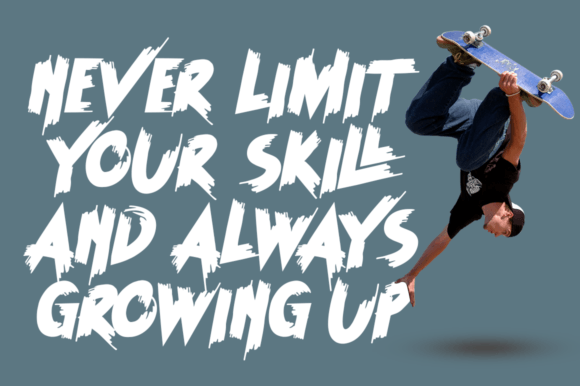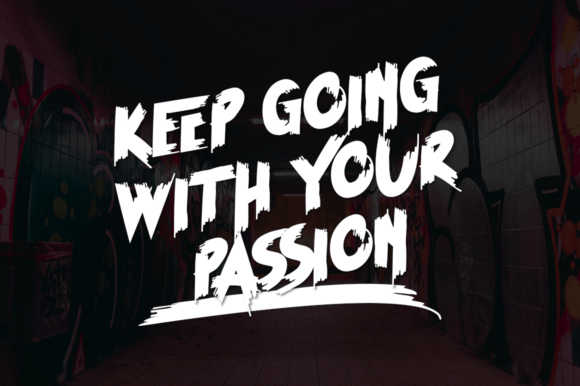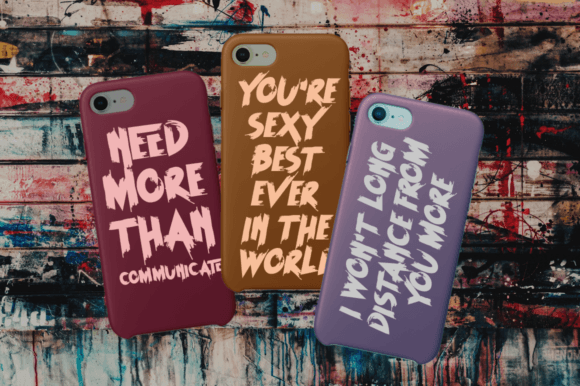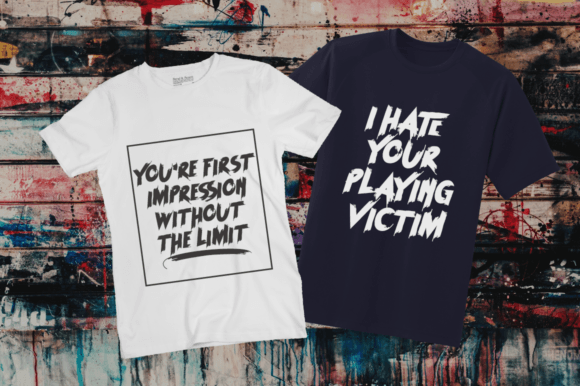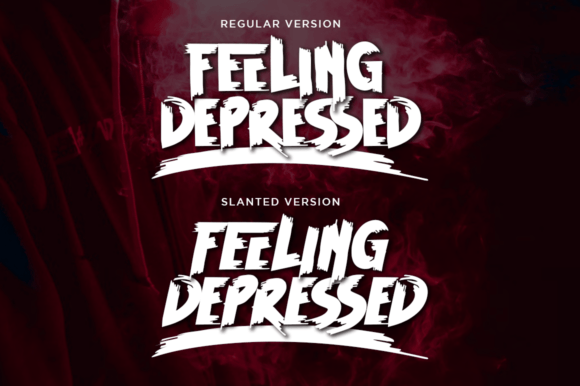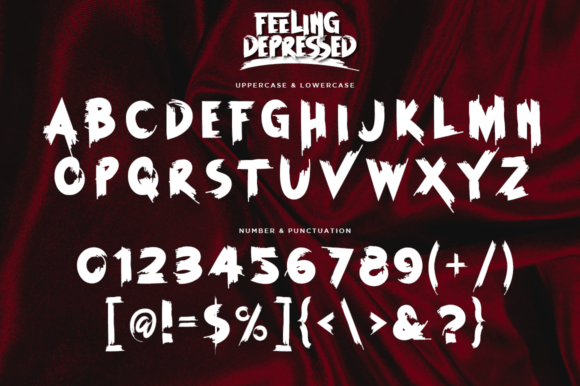
Feeling Depressed Font: Elevate Your Designs with a Cool, Modern Touch
Are you tired of using the same old fonts in your designs? Do you want to add a touch of modernity and texture to your creations? Look no further than the Feeling Depressed Font. This cool, modern, textured brush display font is perfect for designers and crafters looking to elevate their fonts’ library and take their designs to the next level.
What is Feeling Depressed Font?
Feeling Depressed Font is a unique and stylish font that features a textured, brush-like effect. Its modern and edgy design makes it perfect for a wide range of projects, from creative branding and advertising to social media graphics and more. Whether you’re a professional designer or a crafty DIY enthusiast, this font is sure to become a valuable addition to your collection.
Key Features of Feeling Depressed Font
- Textured Brush Effect: The Feeling Depressed Font features a unique textured brush effect that gives it a distinctive, hand-crafted look.
- Modern and Edgy Design: This font’s modern and edgy design makes it perfect for projects that require a bold and contemporary look.
- High-Quality Design: The Feeling Depressed Font is designed with high-quality craftsmanship in mind, ensuring that it will look great in any project.
- Versatile: This font is versatile and can be used for a wide range of projects, from creative branding and advertising to social media graphics and more.
Why Choose Feeling Depressed Font?
There are many reasons why designers and crafters should choose the Feeling Depressed Font for their projects. Here are just a few:
- Add a Touch of Modernity: This font’s modern and edgy design makes it perfect for projects that require a fresh and contemporary look.
- Stand Out from the Crowd: The Feeling Depressed Font’s unique textured brush effect ensures that your designs will stand out from the crowd and grab attention.
- Easily Readable: Despite its textured effect, the Feeling Depressed Font is still easily readable, making it perfect for use in a wide range of projects.
How to Use Feeling Depressed Font
Using the Feeling Depressed Font is easy. Here are a few tips to get you started:
- Pair it with Other Fonts: The Feeling Depressed Font pairs well with other fonts, so feel free to experiment with different combinations to find the perfect look for your project.
- Use it for Headings and Titles: This font is perfect for use in headings and titles, where its textured effect can really make an impact.
- Experiment with Colors: The Feeling Depressed Font looks great in a wide range of colors, so don’t be afraid to experiment and find the perfect color scheme for your project.
In conclusion, the Feeling Depressed Font is a cool, modern, textured brush display font that is perfect for designers and crafters looking to elevate their fonts’ library and take their designs to the next level. Its unique textured brush effect, modern and edgy design, and high-quality craftsmanship make it a valuable addition to any collection. Whether you’re a professional designer or a crafty DIY enthusiast, this font is sure to become a go-to choice for a wide range of projects.